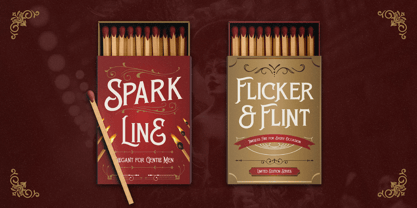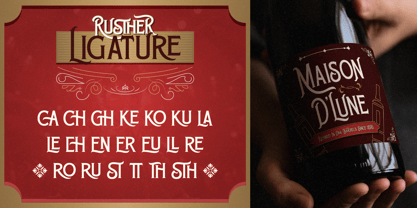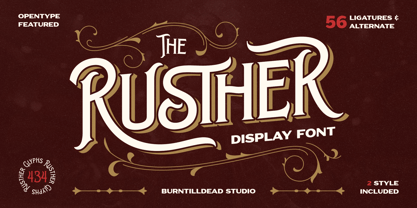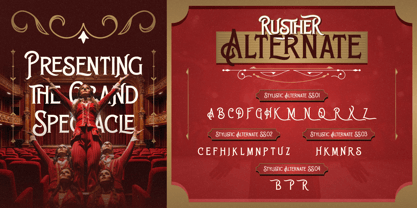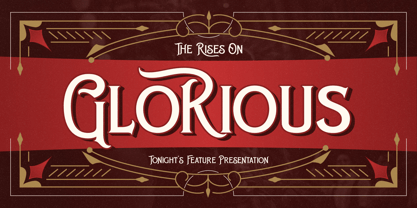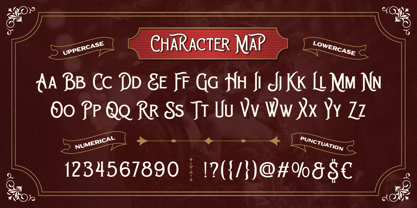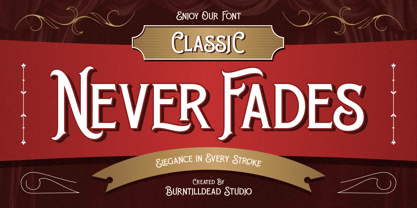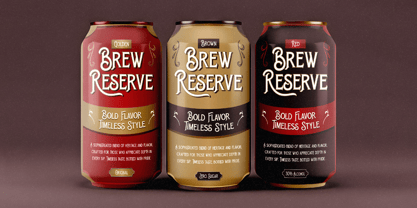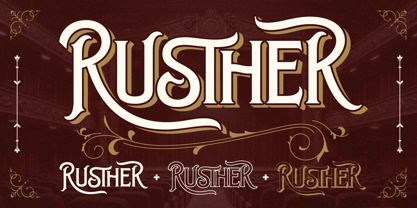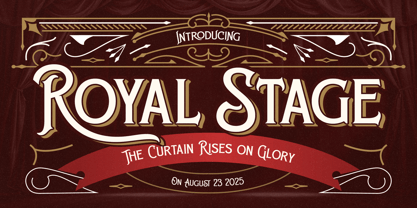
Rusther
Die Schriftfamilie Rusther wurde von Eric Kurniawan entworfen und von Burntilldead veröffentlicht. Rusther enthält 3 Stile und Familienpaketoptionen. Mehr über diese Familie
Introducing Rusther, is a bold display font with a classy twist. Inspired by vintage lettering and a touch of Victorian simple vibes, this font brings drama and elegance without being too extra. Its stylish ligatures, clean curves, and ornamental details make it perfect for posters, wine labels, logos, or anything that needs a timeless stage-ready look.
If you’re going for retro elegance, old-theater charm, or modern vintage branding, Rusther will make your design shine with simple Victorian flair.
Features:
• A - Z set (Uppercase & Lowercase)
• Number
• Punctuation
• Alternate
• Ligature
• Multilingual
Designer: Eric Kurniawan
Rusther